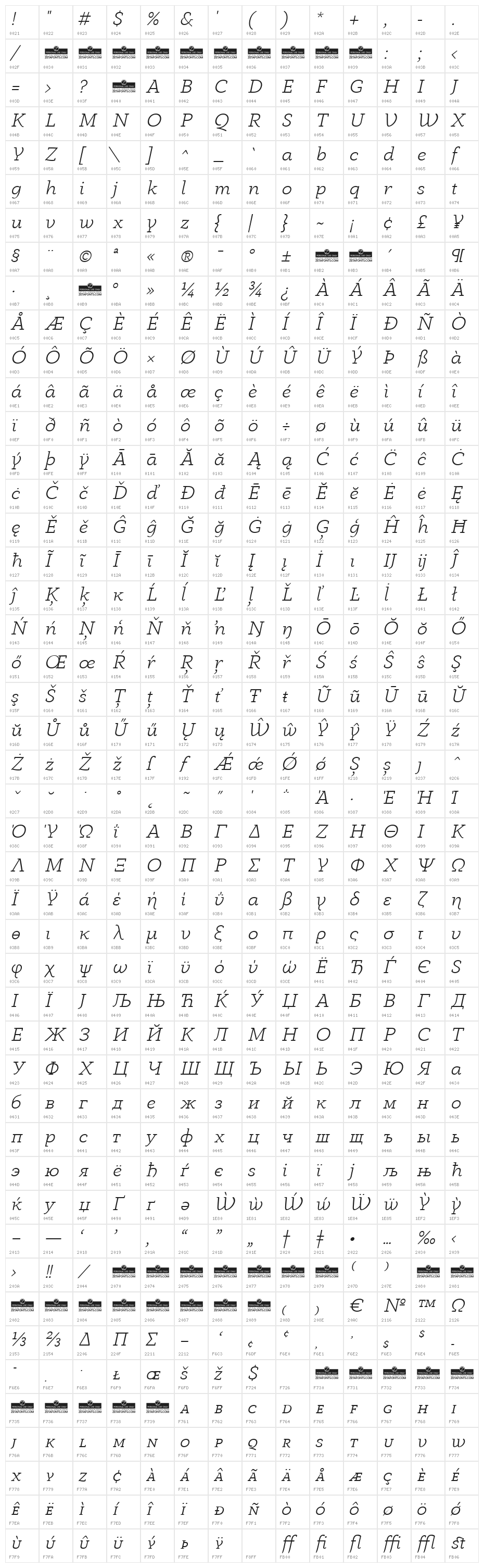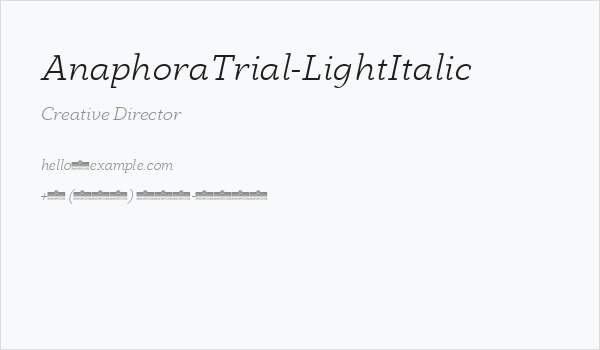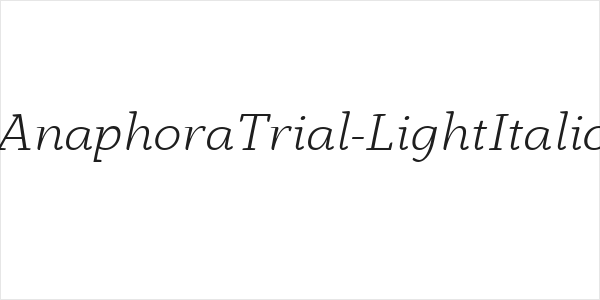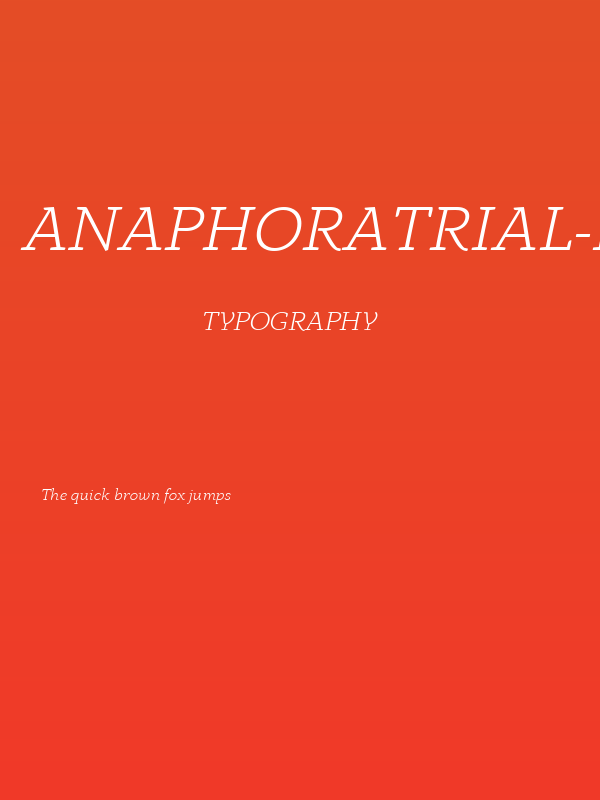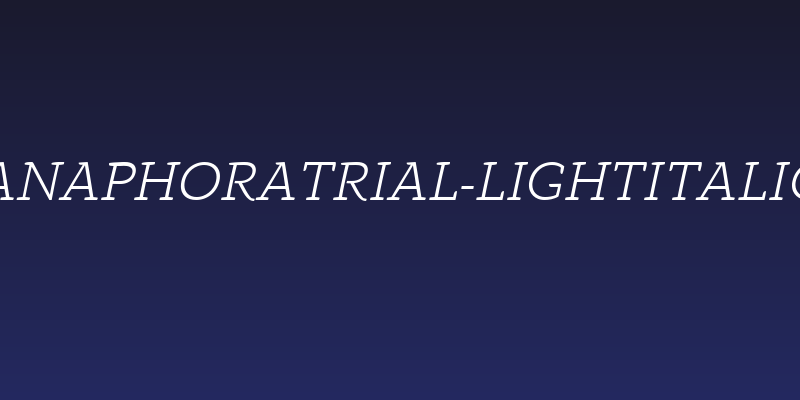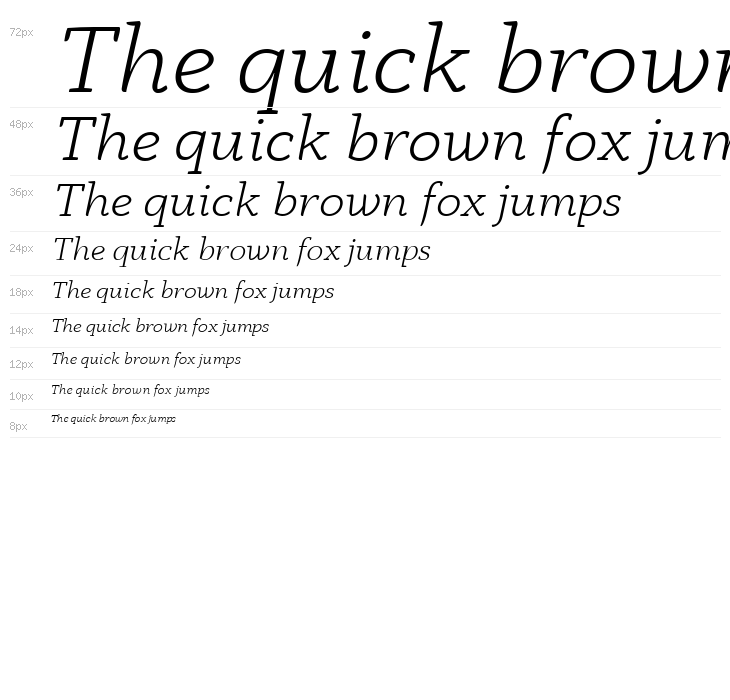
AnaphoraTrial-LightItalic Font
AnaphoraTrial-LightItalic Description
This font exhibits a refined and elegant style, characterized by its light weight and italicized form. The letters are gracefully slanted, adding a sense of motion and sophistication. The strokes are smooth and consistent, with a moderate contrast between thick and thin lines, enhancing readability while maintaining a delicate appearance. The overall design is clean and modern, making it suitable for a variety of applications where a touch of elegance is desired. The character spacing is normal, ensuring clarity and legibility across different sizes.
| Proposed Projects | Ideal for wedding invitations, elegant branding, fashion magazines, and high-end product packaging. |